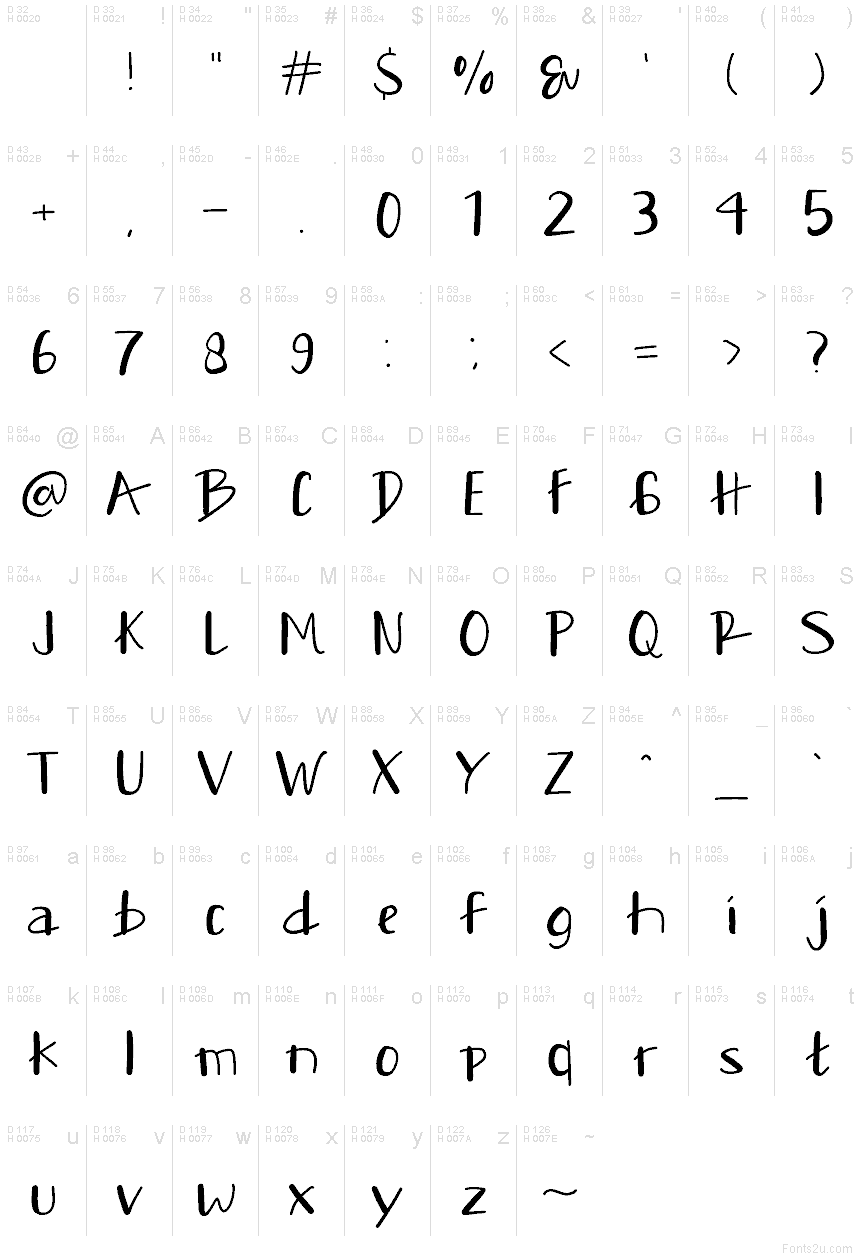
Lemon Soda
This Lemon Soda script font inspired by the soft, delicate designs you can find in the 50s. It includes all the uppercase and lowercase letters as well as punctuation and numerals which makes it perfect for both personal and commercial projects like headlines, branding, logos and invitations. It’s also a great font for magazines and postcards, and you can even use it for UX/UI designs to add a unique touch. You can download this font in 6 different weights (Thin, Light, Regular, Medium, Semi Bold, Bold) that you can mix and match for every project you’ll work on.
Lemon Soda script font is great when used on backgrounds that contrast the letters in color.